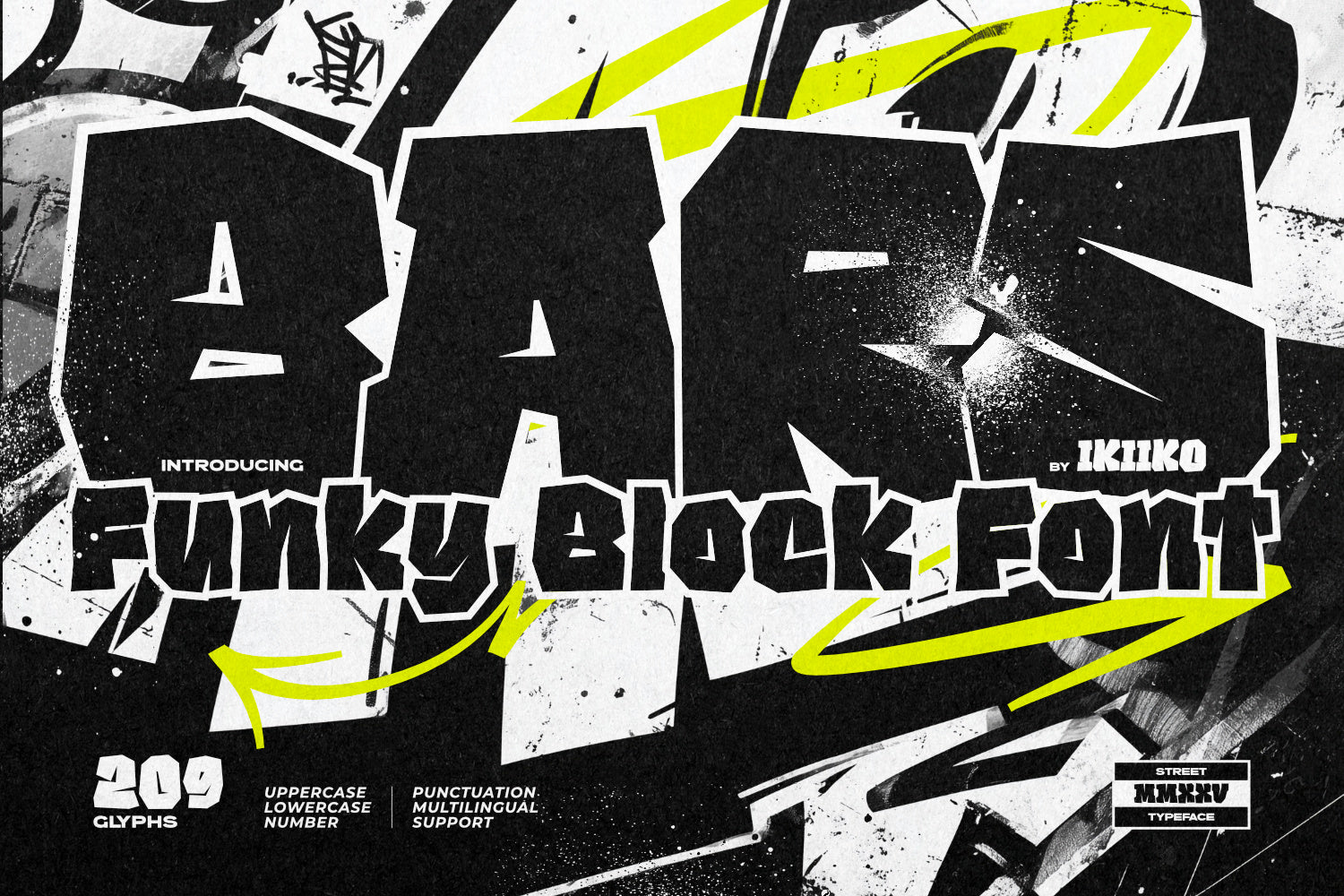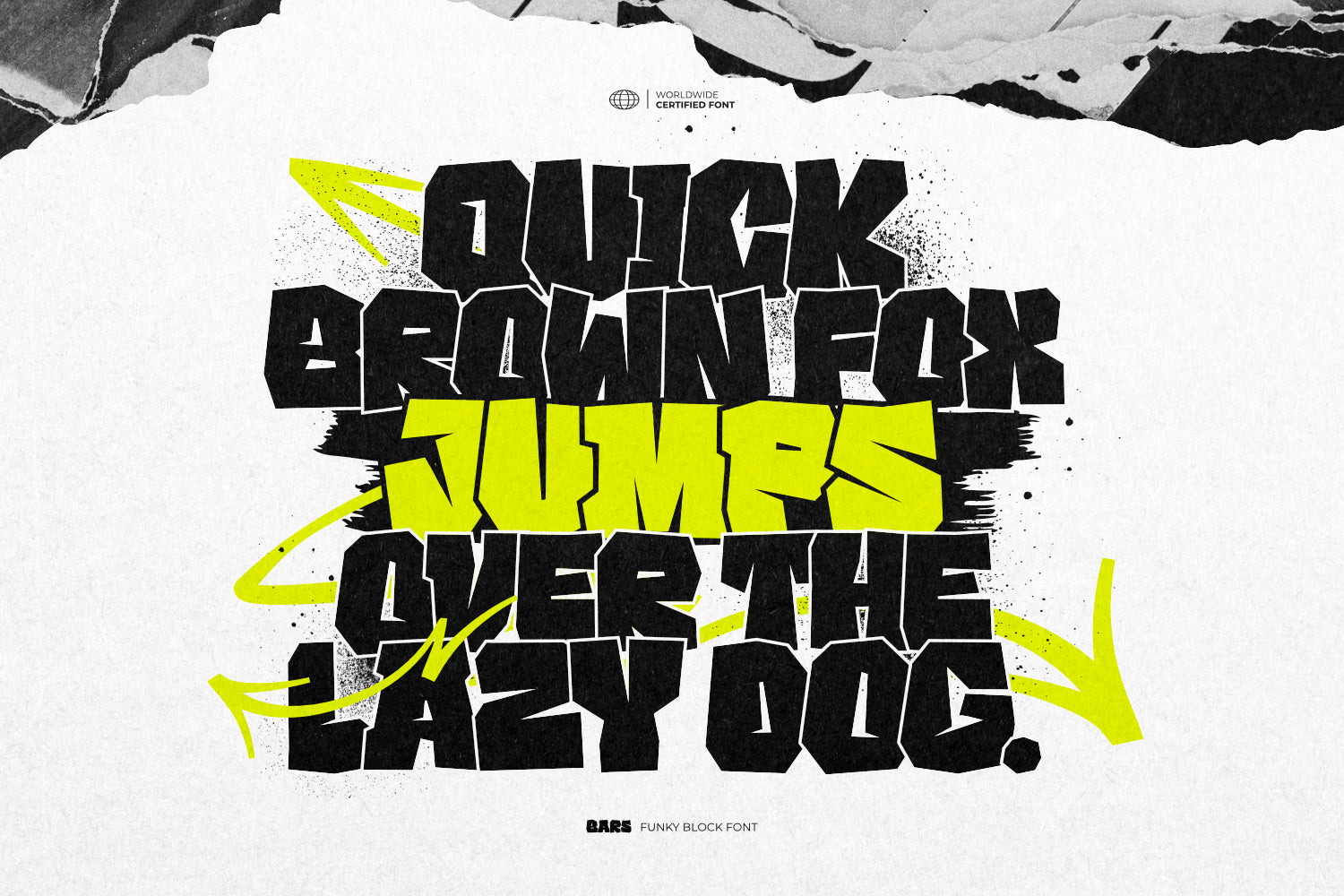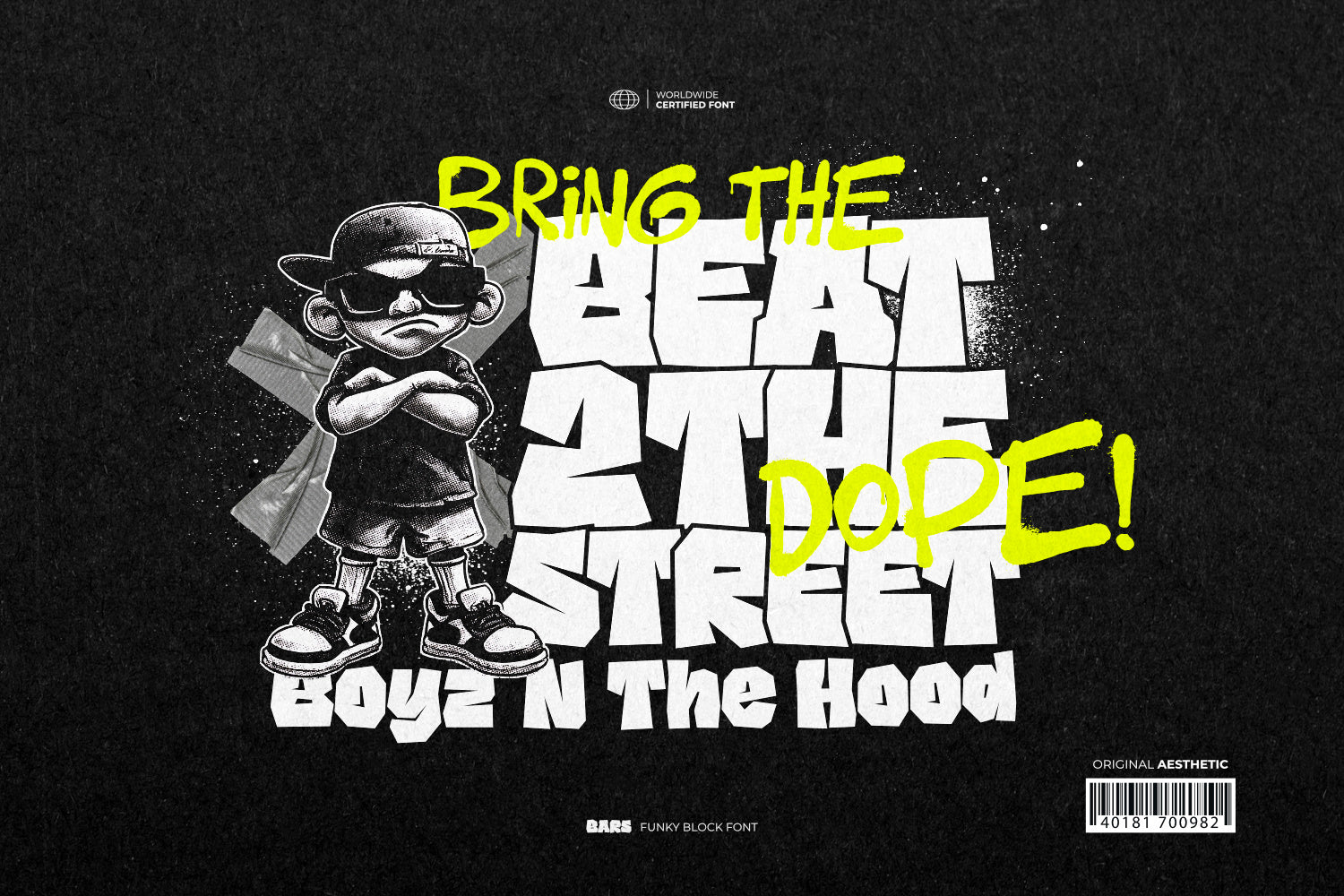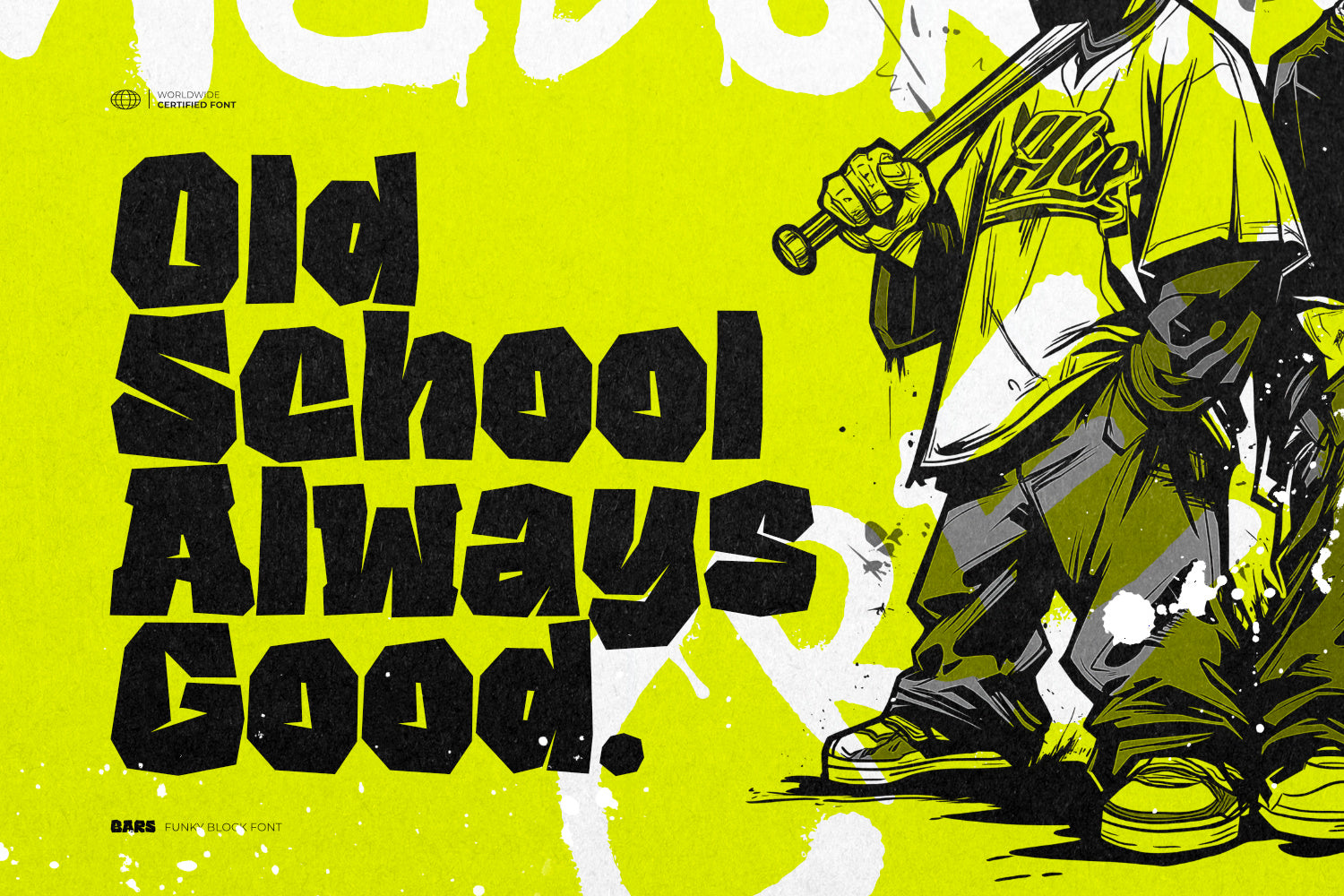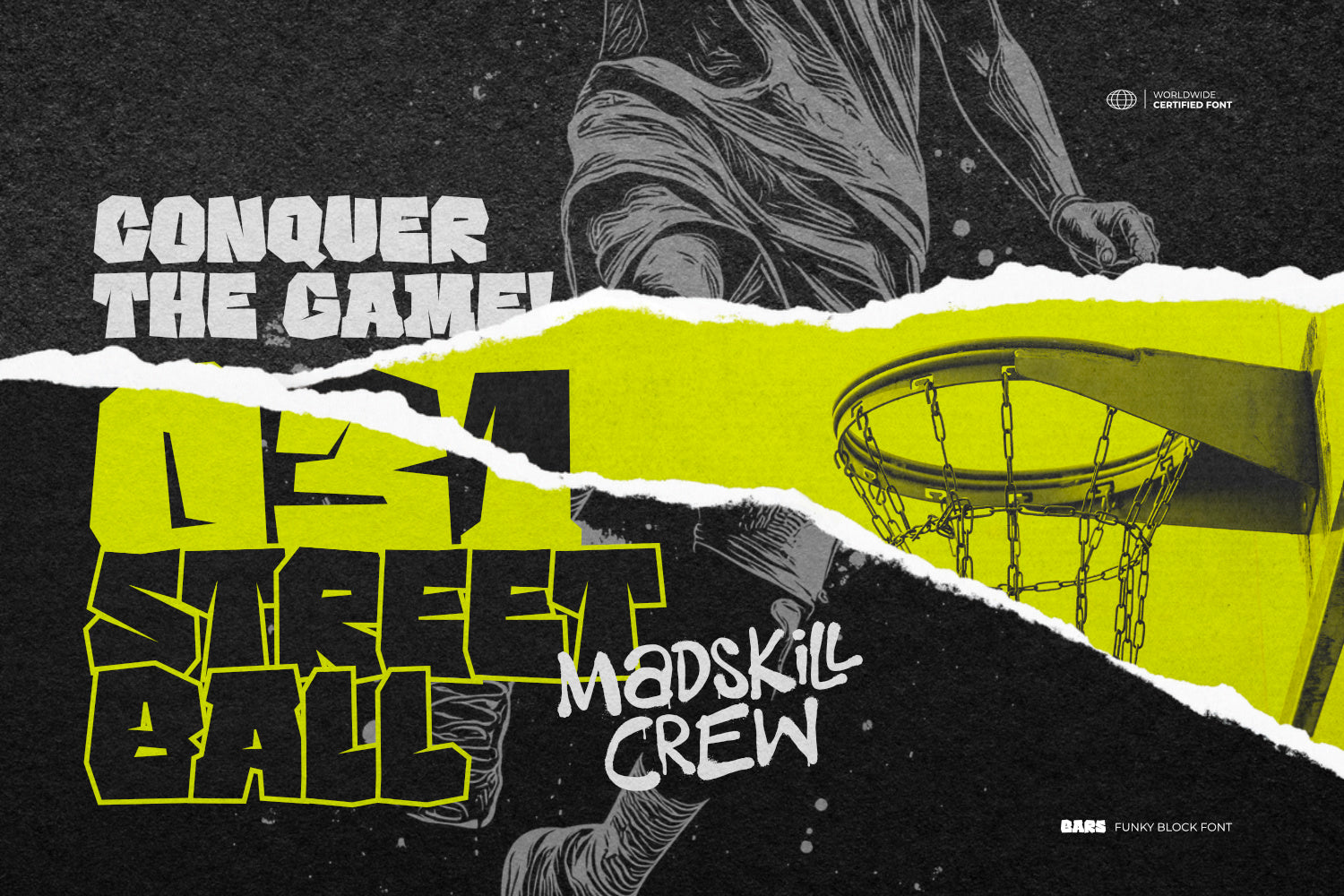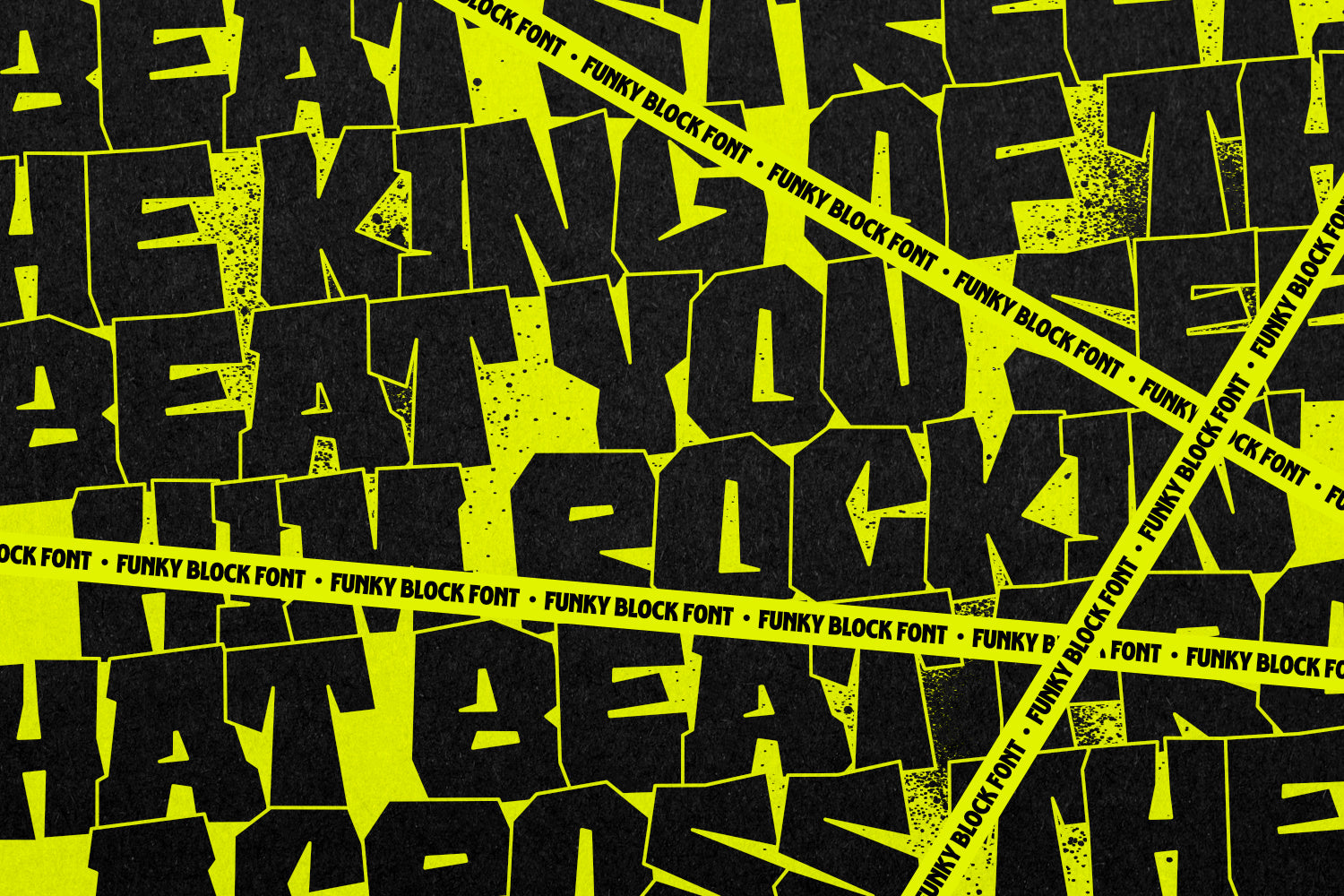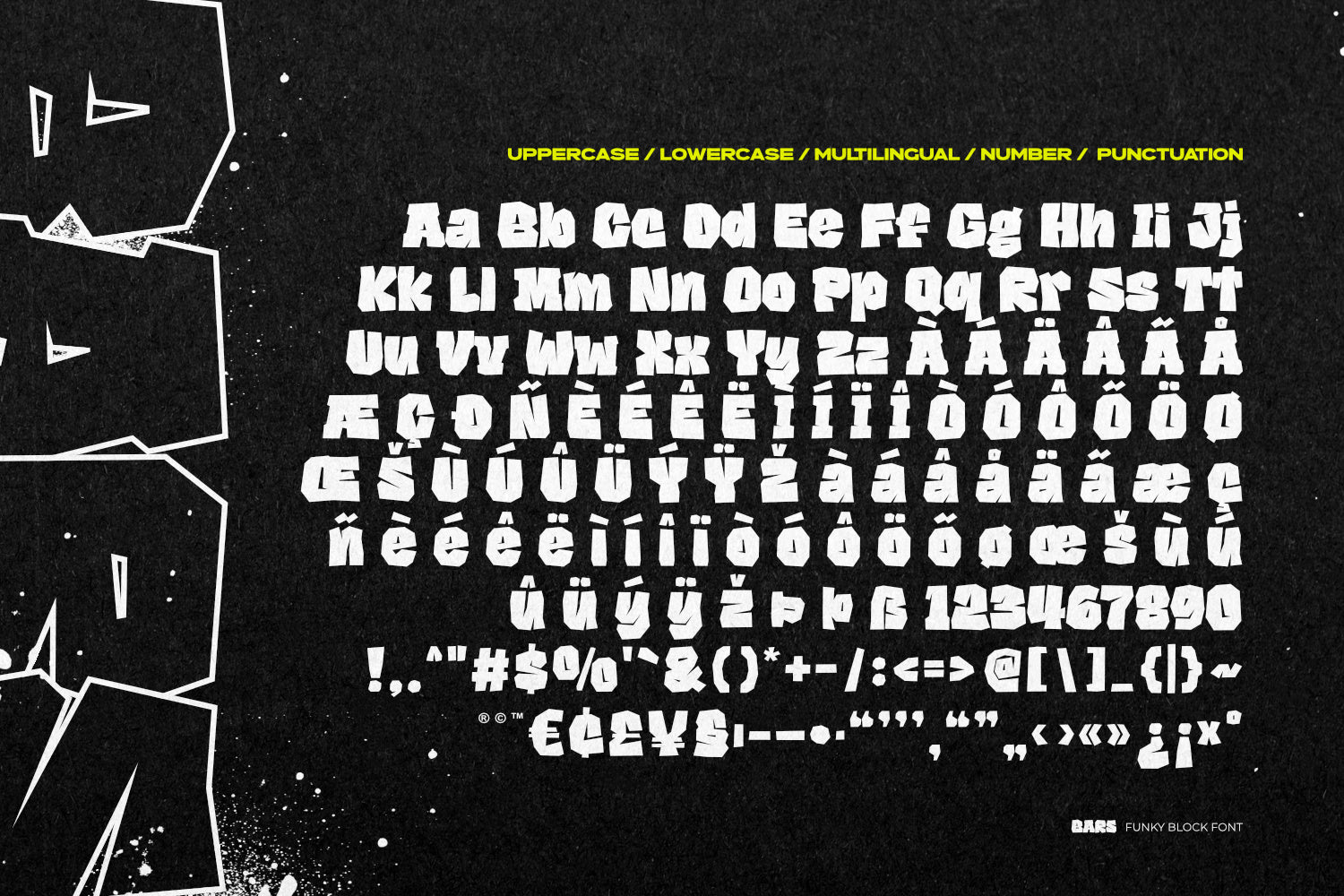
Proudly Present Bars - Funky Block Font, created by ikiiko
Bars – Funky Block Font is a bold tribute to Street Vibes, underground Culture, and raw urban attitude. Designed with a chunky Blocky Style and a playful twist, this font brings the perfect mix of urban culture energy and funky personality. Its sharp edges, stacked forms, and confident rhythm make it a go-to typeface for teenage trends, youth-driven brands, and visuals that demand attention.
Inspired by graffiti tags, street culture, and DIY movement, Bars packs an energetic punch—ideal for logos, merch drops, poster event, social media posts, and any design that thrives on street style aesthetics. Whether you’re crafting bold headings or standout display graphics, this font instantly injects Funky culture and creative rebellion.